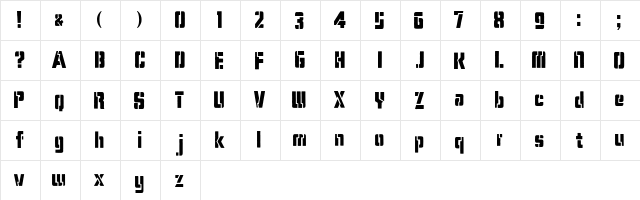
Karen Stencil Regular
Design Context for Karen Stencil Typeface
Karen Stencil borrows the utilitarian aesthetic of stencil lettering, with its characteristic cutaways and no-frills construction lending an industrial edge.
A strong choice for packaging that needs edge, warehouse aesthetics, and rough-and-ready visual identities.
Pro Tip: Use Karen Stencil at large sizes on packaging, posters, or apparel where the stencil cutaways read clearly. Avoid small sizes where those gaps become visual noise.